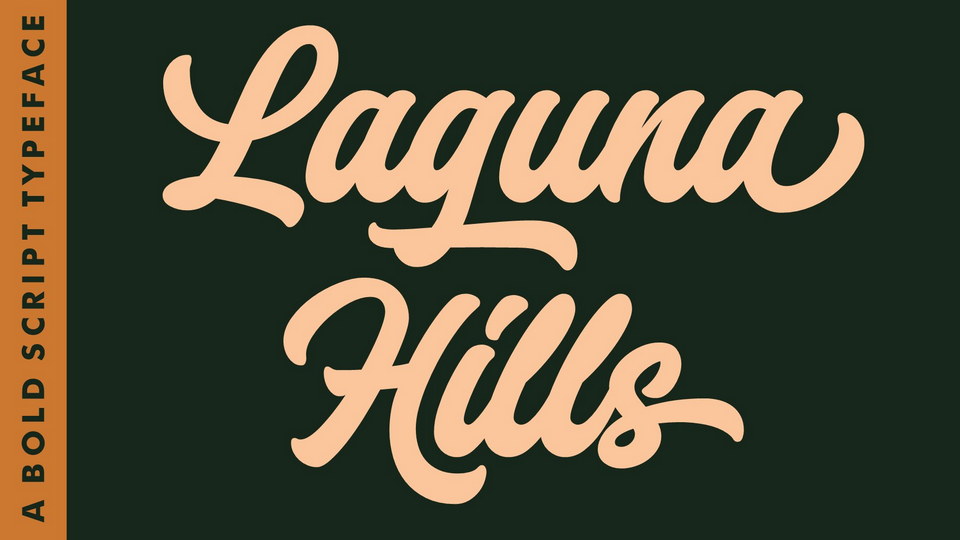
Download Laguna Hills font, a bold connected script typeface with clean lines, smooth curves and dramatic movement. Laguna Hills is coming to help you creating hand-made lettering typography in an instant!
Designer: Redy Studio